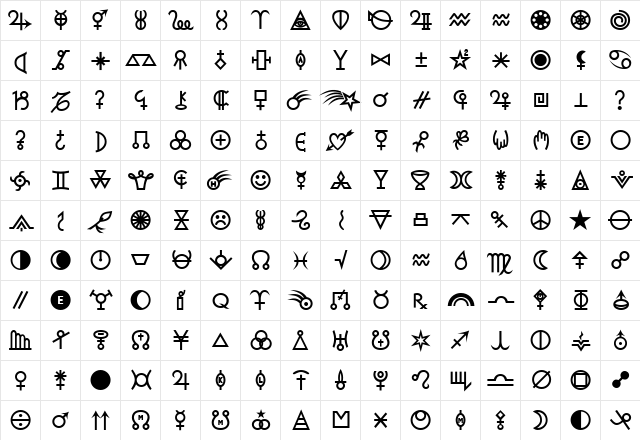
StarGemsBold Medium
StarGemsBold is a composed and adaptable typeface that performs quietly and consistently across a wide range of design contexts. Its bold stroke weight gives it real presence on the page.